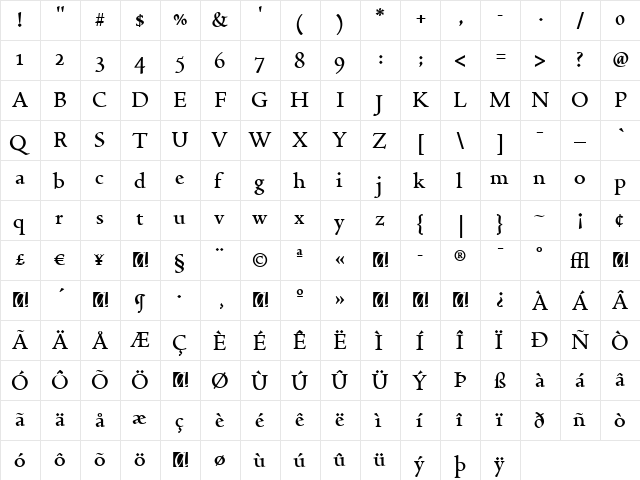
Spira-Bold Regular
| Designer | Andy Stockley |
Design Context for Spira-Bold Typeface
Spira-Bold offers clean, dependable letterforms without strong stylistic allegiance, making it a practical choice for designers who need flexibility. The heavy weight commands attention and anchors typographic hierarchies.